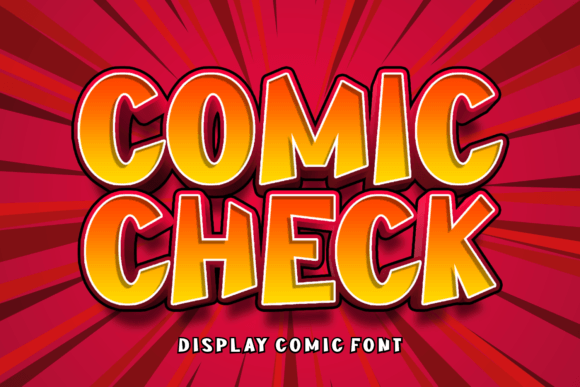
Introducing Comic Check Font: The Ultimate Display Font for Playful Designs
In the world of typography, fonts play a crucial role in conveying the tone and personality of a design. When it comes to creating playful and dynamic visuals, a font that exudes fun and cheerfulness is essential. This is where Comic Check font comes into play, a display font that embodies the spirit of comic book charm and adds a delightful flair to your creative expressions.
What is Comic Check Font?
Comic Check is a fun and cheerful display font designed to bring playful exuberance to your designs. With its whimsical letterforms and vibrant energy, this font is perfect for projects that require a lighthearted and dynamic aesthetic. Whether you’re working on a comic book, a children’s book, a poster, or a social media graphic, Comic Check is the ideal choice to add a touch of playfulness and humor.
Key Features of Comic Check Font
- Whimsical Letterforms: Comic Check features unique and playful letterforms that are reminiscent of comic books. Each letter is carefully crafted to convey a sense of fun and energy.
- Vibrant Energy: The font has a lively and dynamic feel to it, making it perfect for designs that require a burst of energy and excitement.
- Lighthearted Aesthetic: Comic Check is designed to create a lighthearted and playful atmosphere in your designs, making it ideal for projects that require a humorous tone.
- Display Font: Comic Check is a display font, which means it’s perfect for headlines, titles, and short paragraphs of text.
Uses of Comic Check Font
Comic Check is a versatile font that can be used in a variety of design projects, including:
- Comic Books and Graphic Novels: The font is perfect for creating comic book-style text that adds to the overall narrative.
- Children’s Books and Educational Materials: Comic Check is an excellent choice for children’s books, activity sheets, and educational materials that require a playful and engaging tone.
- Posters and Flyers: The font is ideal for creating eye-catching posters and flyers that require a bold and attention-grabbing headline.
- Social Media Graphics: Comic Check can be used to create engaging social media graphics, such as memes, GIFs, and short videos.
Benefits of Using Comic Check Font
Using Comic Check font in your designs offers several benefits, including:
- Unique and Playful Style: The font adds a unique and playful touch to your designs, setting them apart from more traditional fonts.
- Improved Readability: Comic Check is designed to be easy to read, even at smaller sizes, making it perfect for body text and captions.
- Flexibility: The font can be used in a variety of design projects, from digital graphics to print materials.
- Fun and Engaging: Comic Check is designed to create a fun and engaging atmosphere in your designs, making it perfect for projects that require a lighthearted tone.
Tips for Using Comic Check Font Effectively
To get the most out of Comic Check font, here are some tips to keep in mind:
- Use it Sparingly: Comic Check is a display font, so it’s best to use it sparingly to create a bold and eye-catching headline or title.
- Pair it with Other Fonts: The font pairs well with other fonts, such as sans-serif fonts, to create a visually appealing contrast.
- Experiment with Colors: Comic Check looks great in bright and bold colors, so don’t be afraid to experiment with different color schemes.
- Keep it Legible: Make sure to keep the font legible by using a large enough size and a clear enough color contrast.
In conclusion, Comic Check font is a fun and cheerful display font that’s perfect for adding a playful touch to your designs. With its whimsical letterforms, vibrant energy, and lighthearted aesthetic, it’s ideal for projects that require a dynamic and engaging tone. Whether you’re a designer, artist, or DIY enthusiast, Comic Check is a great choice for creating visually appealing and engaging designs.
FAQs About Comic Check Font
- What type of font is Comic Check? Comic Check is a display font, specifically designed for use in headlines, titles, and short paragraphs of text.